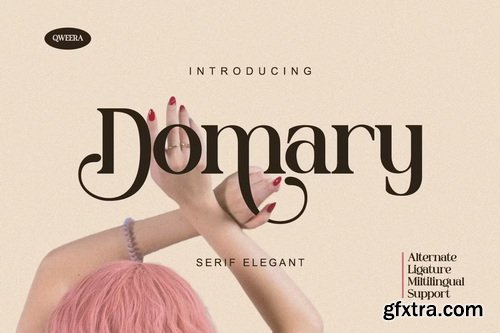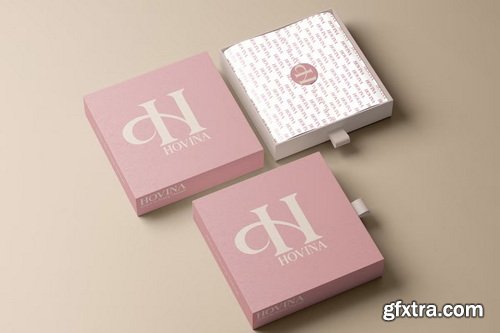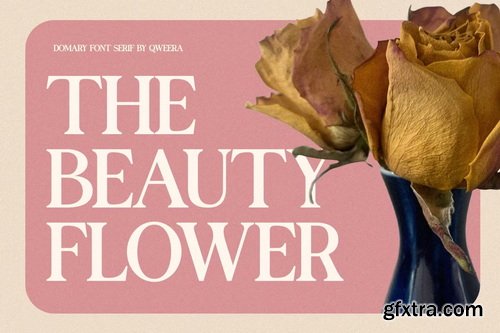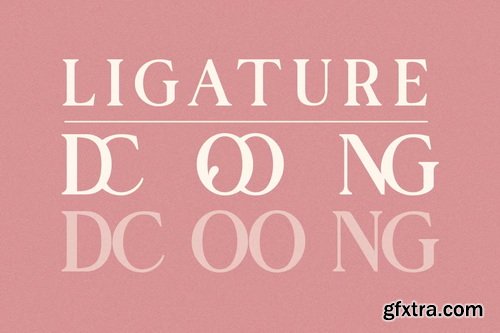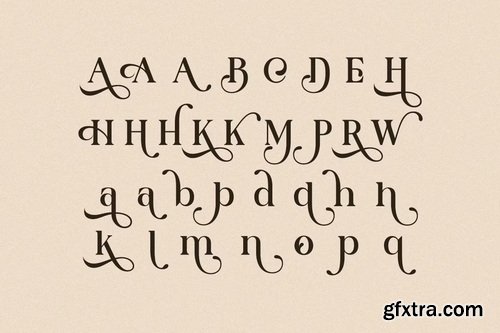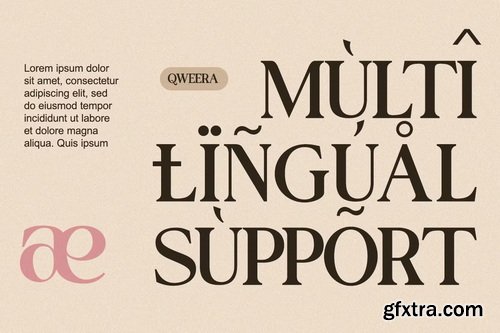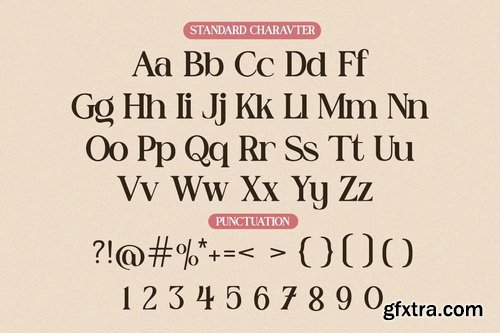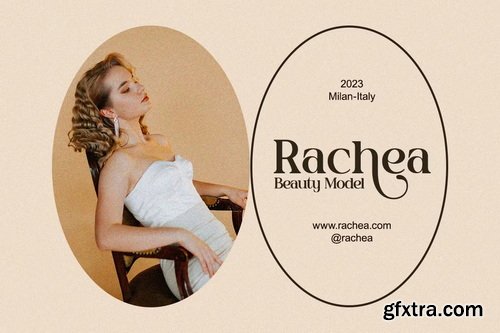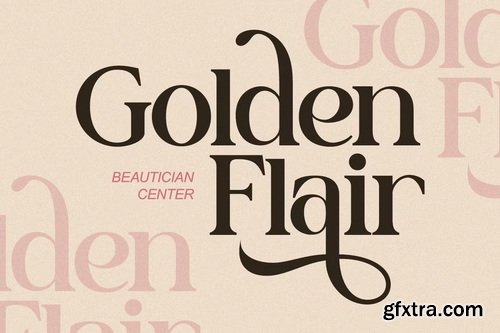
CreativeMarket - Domary Modern Elegant Luxury Serif Font
- Domary is an elegant modern serif font with refined curves, stylish ligatures, and subtle luxury in every character. Crafted with a feminine touch and fashionable precision, Domary shines in high-end branding, wedding logos, magazine editorials, and social media aesthetics. A balance of soft elegance and professional edge makes this font perfect for those who want to exude beauty, calm, and class in their typography.